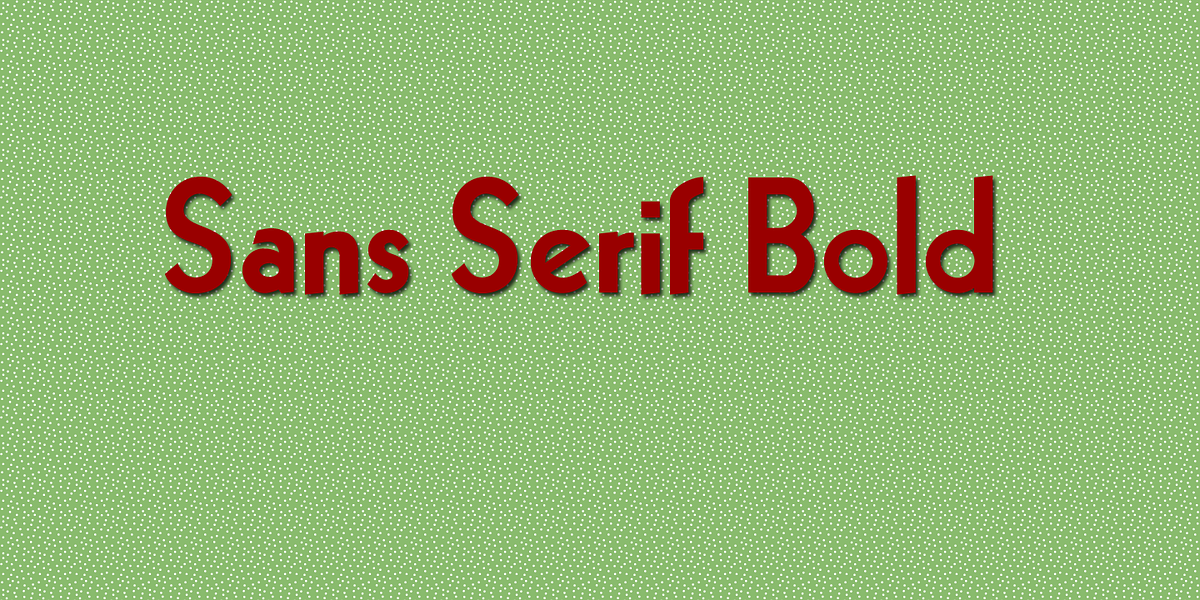
Sans Serif Bold Font Free Download is a modern and robust sans-serif typeface designed with bold lines and strong geometric shapes. Its clean and minimalistic design makes it perfect for high-impact projects such as branding, headlines, posters, logos, and web design.
The bold weight adds emphasis and readability, making it ideal for attention-grabbing titles and promotional materials. Whether you're working on a corporate identity, digital design, or any project requiring a modern, powerful look, Sans Serif Bold delivers the clarity and strength you need.